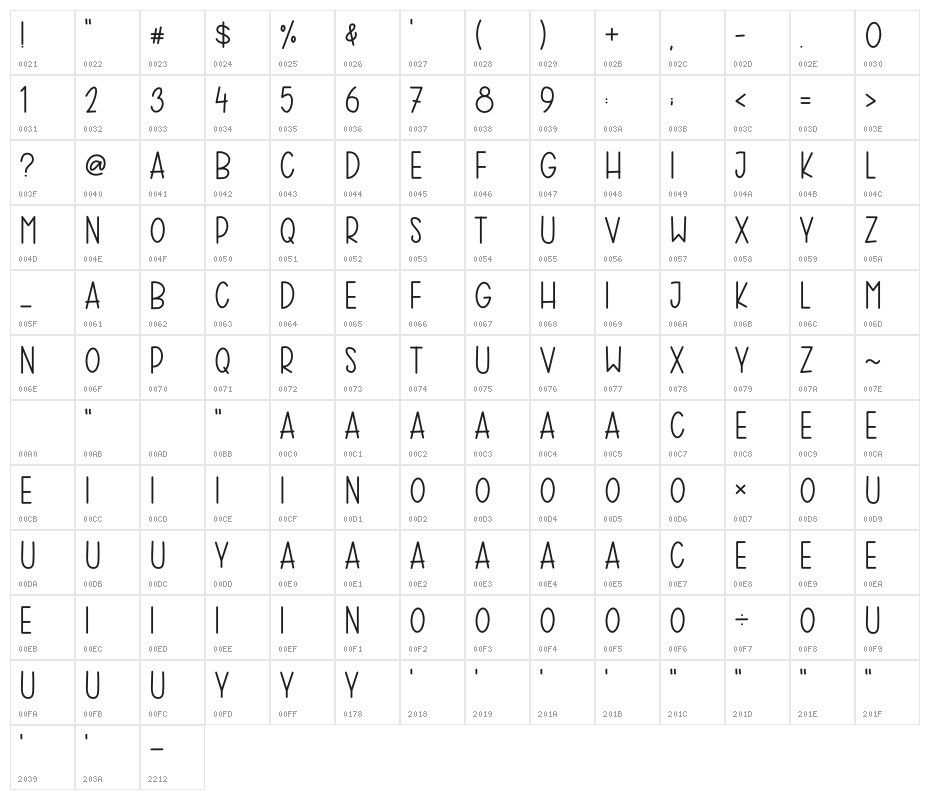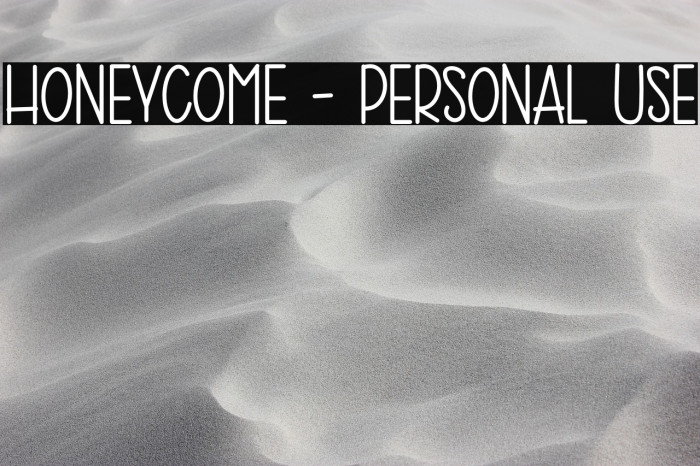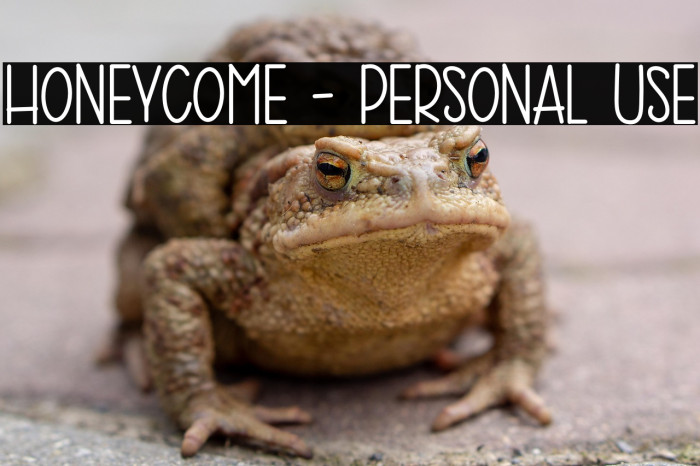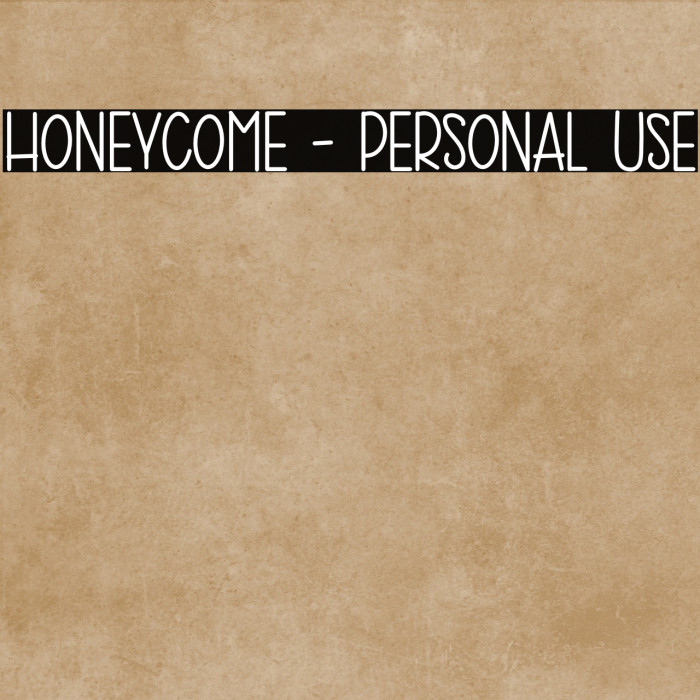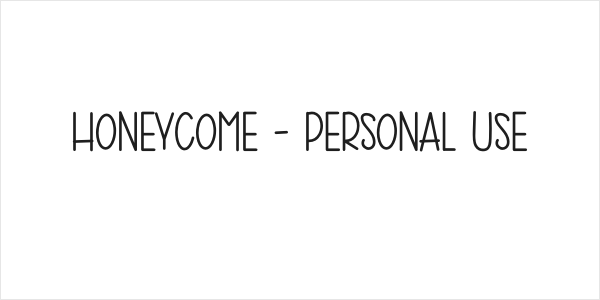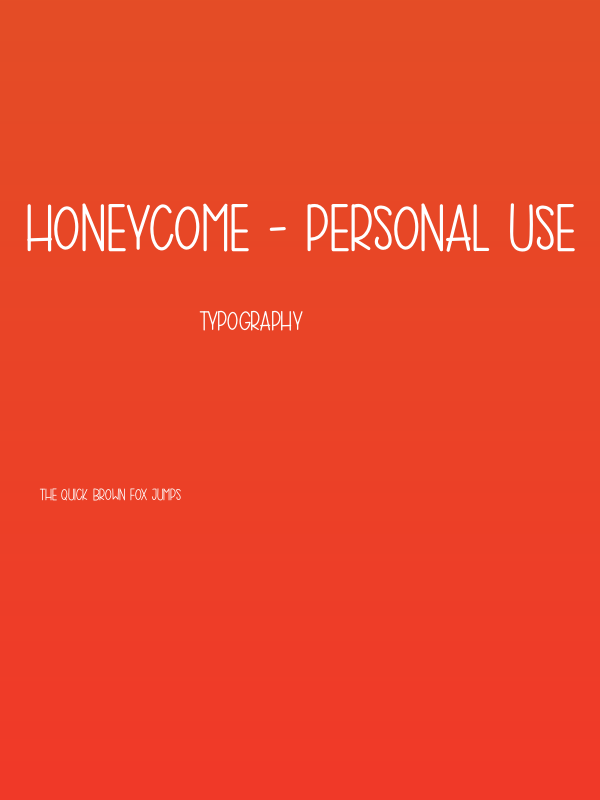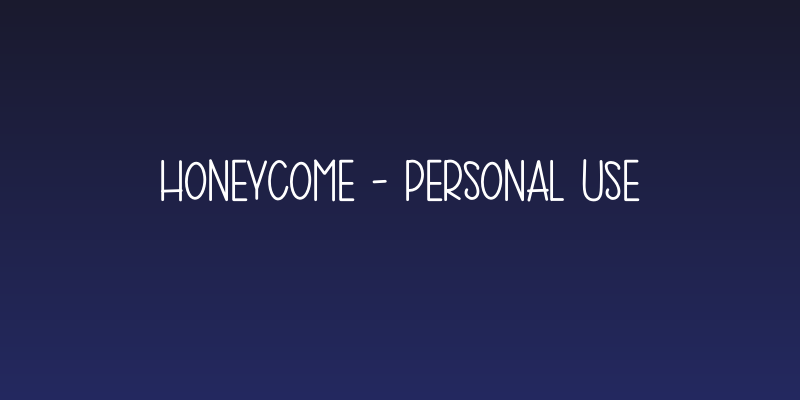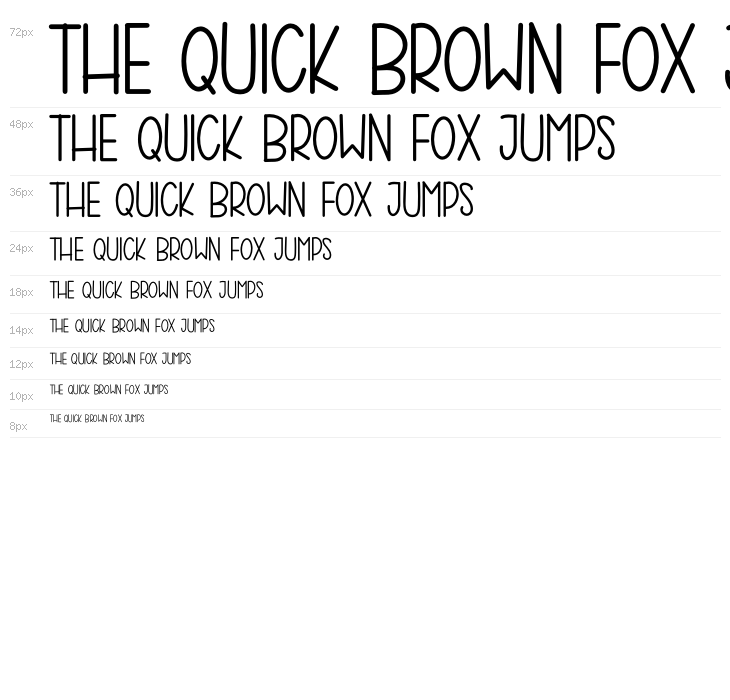
HONEYCOME - Personal Use Font
HONEYCOME - Personal Use Description
This font features a playful and casual handwritten style, characterized by its rounded and smooth letterforms. The uppercase and lowercase letters maintain a consistent height, giving the font a uniform appearance. The strokes are even and slightly thick, contributing to its legibility and friendly aesthetic. The numerals and special characters are designed to match the overall style, ensuring cohesion across different uses. This font exudes a sense of approachability and warmth, making it suitable for informal and creative projects.
Overall StyleCasual
Use CaseHeadlines, Logos, Informal Text
Proposed ProjectsIdeal for greeting cards, children's books, playful branding, and social media graphics.